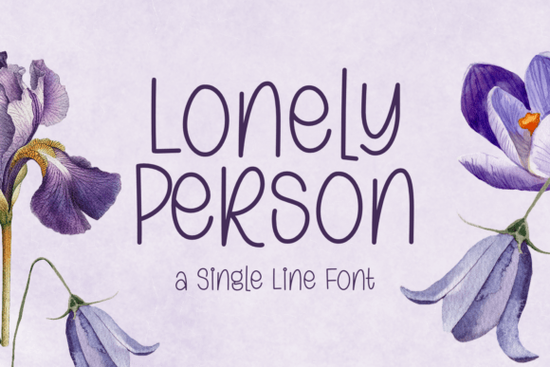
If you’re looking for a font that feels friendly and slightly quirky without being too distracting, Lonely Person Font might be exactly what you need. Its mix of simple shapes and playful curves makes it stand out from standard handwriting fonts, while still staying clean enough for everyday use.
What makes Lonely Person Font different from other script fonts?
Most script fonts lean either formal (like wedding calligraphy) or overly casual (like messy handwriting). Lonely Person Font finds a sweet spot in between. The letters are well-proportioned and easy to read, but each character has a slight bounce or irregular stroke that gives it personality. It’s not trying to be perfect, and that’s what makes it feel approachable.
Compared to bolder options like the Baloo font or the more decorative Barbie font, this one keeps a lighter, airier feel. If you need a script that works for both headings and short body text without overwhelming the layout, Lonely Person Font handles both roles well.
How do I pair Lonely Person Font with other design elements?
Because the font has a friendly, unpolished charm, pair it with clean, simple elements. Avoid adding too many other decorative scripts – one playful script is usually enough. Combine it with:
- A solid sans-serif (like Montserrat or Open Sans) for body text or subheadings, so the design stays readable.
- Minimal illustrations – hand-drawn icons or simple vector shapes complement the font’s handmade vibe.
- Muted or pastel colors – the font feels soft, so bright neons might clash. Earthy tones, soft blues, and warm pinks work nicely.
- Generous white space – let the letters breathe. Don’t crowd them with heavy borders or busy backgrounds.
Where should I use Lonely Person Font for print-on-demand?
Print-on-demand sellers often need fonts that grab attention but remain readable in small sizes. This font works especially well on:
- Greeting cards and invitations – the quirky style fits birthday, thank-you, and “just because” cards.
- Quote posters or wall art – short, uplifting phrases look natural in this font.
- Kids’ apparel and accessories – it reads as cheerful, not formal.
- Digital planners or stickers – the uneven lines add a hand-lettered feel to digital products.
Before uploading your design, always test how the font renders on the product mockup. Some thin strokes might disappear on dark items, so adjust the weight or outline if needed.
Tips for getting the most out of this font
Here’s a quick checklist to keep your designs looking polished:
- Check kerning manually – auto spacing can sometimes leave gaps with irregular characters.
- Use ligatures if available – many script fonts include alternate letter combinations that make words flow better.
- Mix uppercase and lowercase – all caps can lose the font’s friendly feel, so use sentence case or title case.
- Keep the font size generous – it works best for headlines and short phrases, not long paragraphs.
- Pair with a contrasting font – a simple sans-serif or slab-serif gives the design structure.